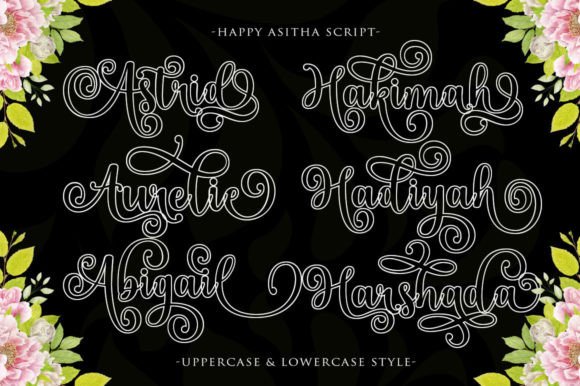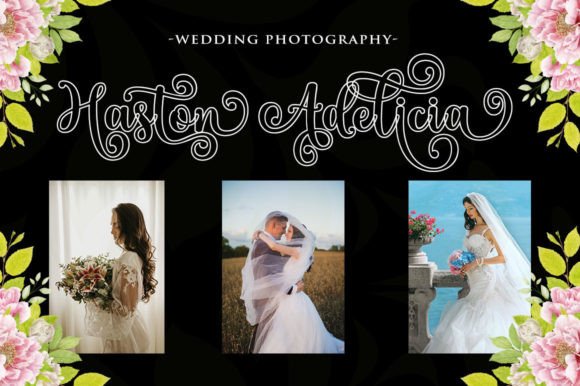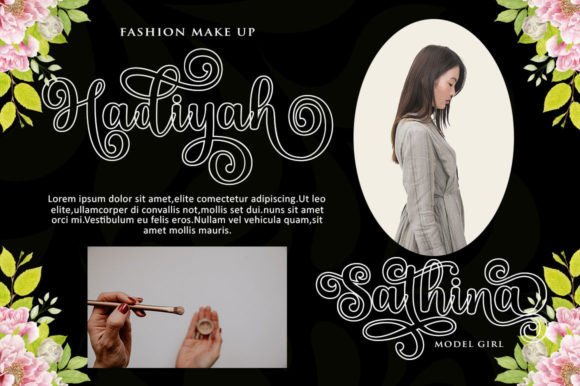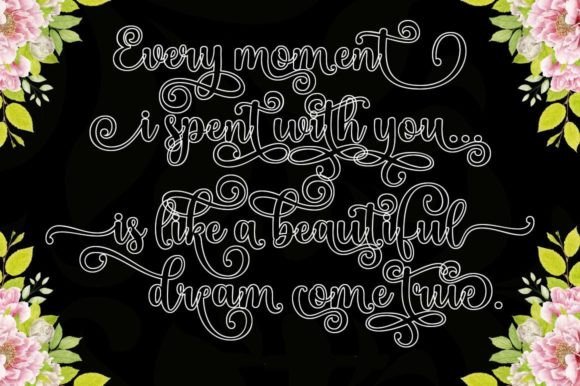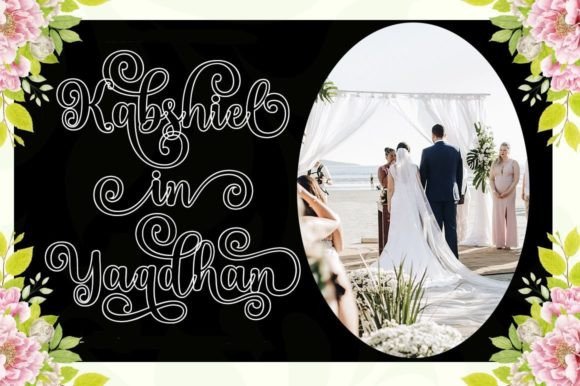
Happy Asitha Script is a modern calligraphic outline font. Whether you’re looking for fonts for Instagram or calligraphy scripts for DIY projects, this font will turn any creative idea into a true piece of art! Happy Asitha Script is PUA encoded which means you can access all the glyphs and ligatures with ease!
Happy Asitha Script Font